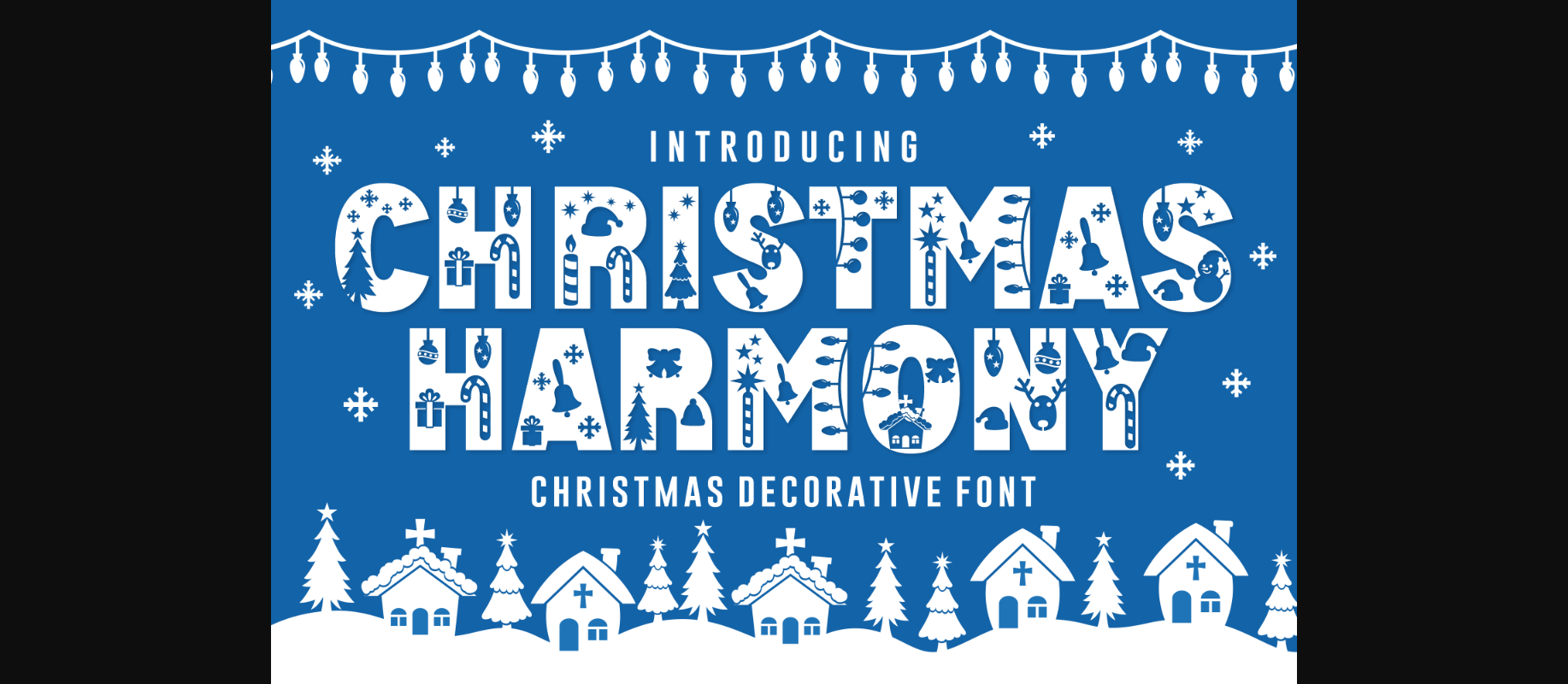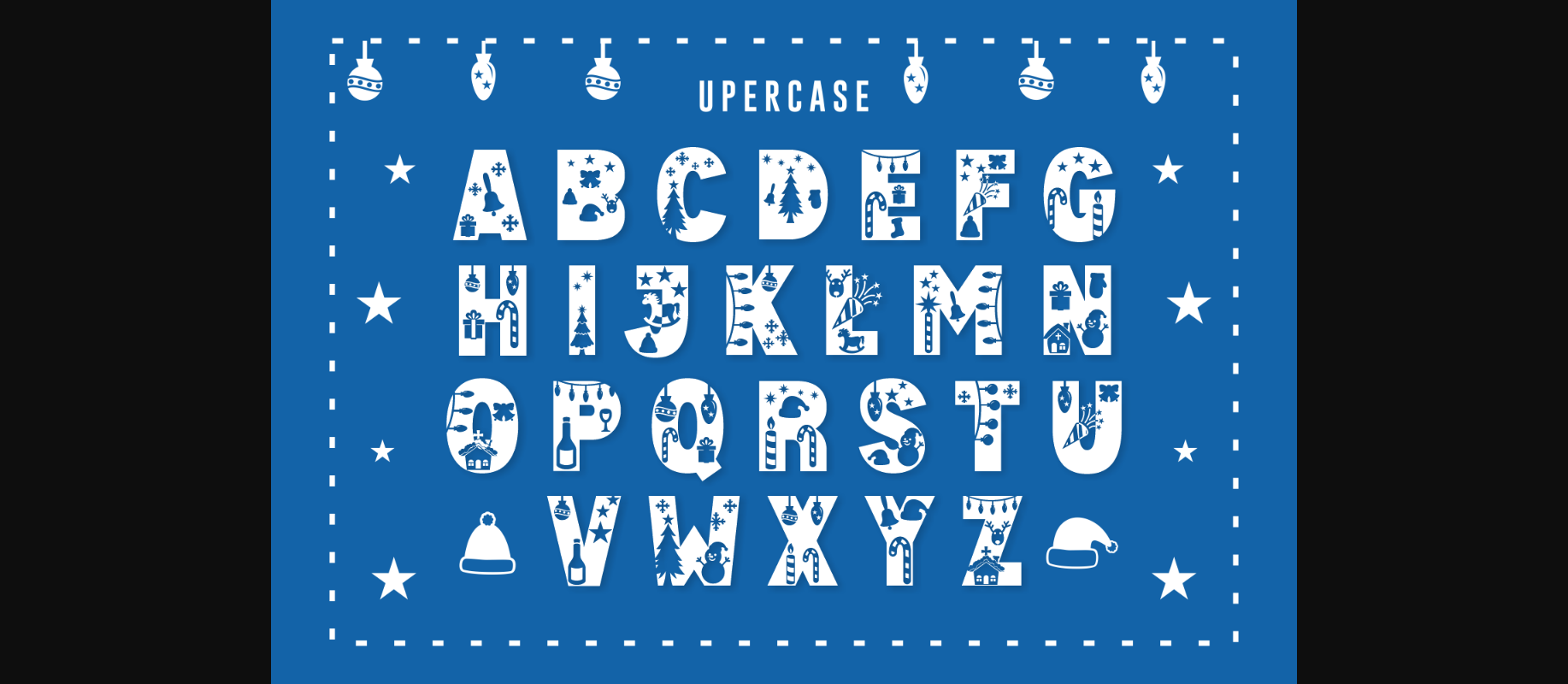
About Christmas Harmony Font
Christmas Harmony is a fun, unique and useful decorative font. It is PUA encoded which means you can access all of the glyphs and swashes with ease! Add it confidently to your favorite creations and let yourself be amazed by the outcome generated.